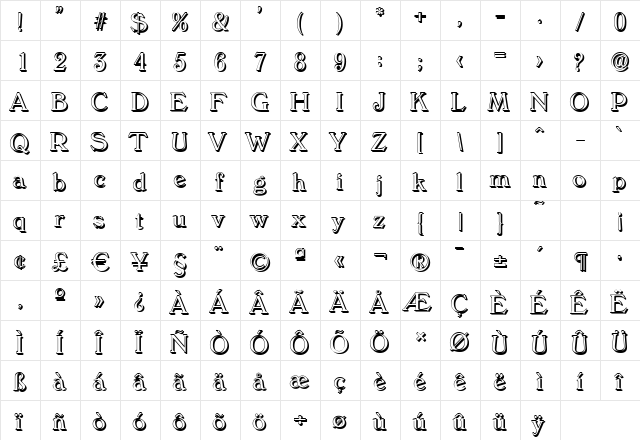
KellyBeckerShadow-Light Regular Font Preview
KellyBeckerShadow-Light Regular
Design Context for KellyBeckerShadow-Light Typeface
KellyBeckerShadow-Light is built around its visual character rather than neutral utility — its distinctive forms are designed to make an impression at display sizes. The delicate stroke weight brings airiness and refinement to layouts.
Font Pairing: Pair with a clean neutral sans-serif for body copy to let KellyBeckerShadow-Light's character lead without overwhelming the composition.
Pro Tip: Treat KellyBeckerShadow-Light as the centrepiece of your typographic hierarchy. One strong heading set in a decorative face can carry an entire layout.